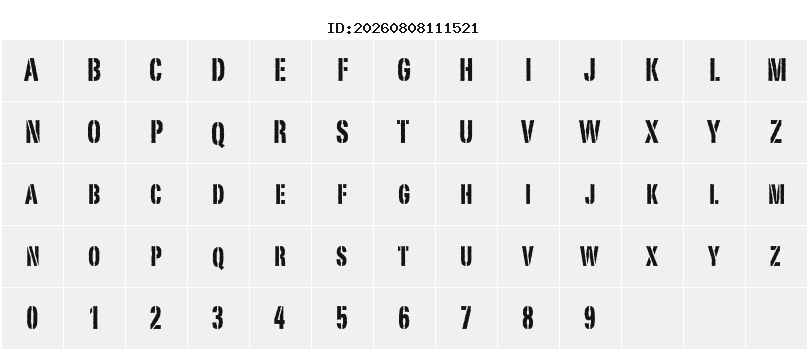
PortagoITC TT Preview
About PortagoITC TT.ttf
PortagoITC TT.ttf is a modern, elegant sans-serif font designed for ultimate readability and visual harmony. Perfect for branding, headlines, web design, and print materials.